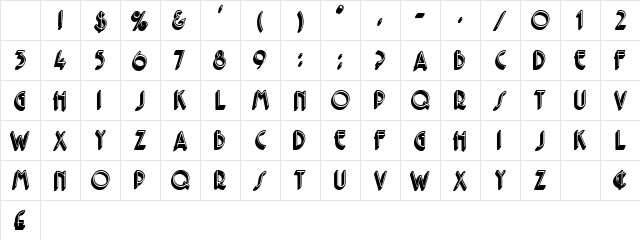
PacificCaps Normal
Complete PacificCaps Normal glyph index. Displaying only characters natively supported by PacificCaps Normal font.
Design Context for PacificCaps
PacificCaps is a composed and adaptable typeface that performs quietly and consistently across a wide range of design contexts.
Pro Tip: Use PacificCaps in both headline and body roles to test its range before committing to a single application.